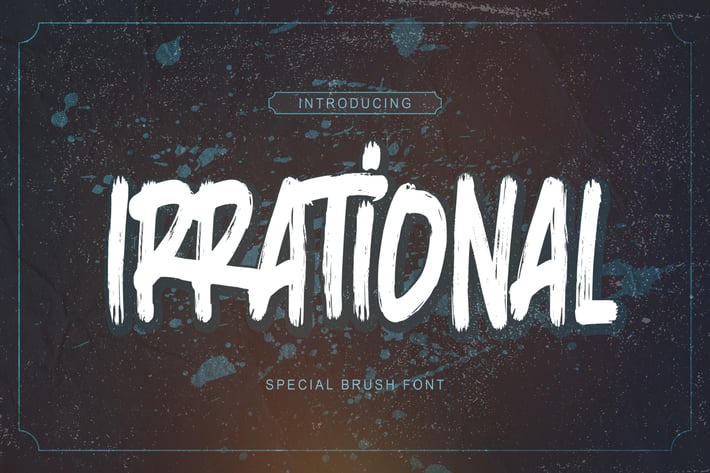
Irrational - Special Brush Font
Irrational - Strong Brush Font is a Authentic brush Font that is written casually and quickly.
every glyphs are made with Procreate. Then trace down into a vector format, and carefully crafted into a typeface.
That is why Irrational has rough, authentic and strong characteristic more natural look.
Irrational Perfect for designs,branding projects, Logo design,
Quotes product packaging and another Project thet require cool strong brush font.